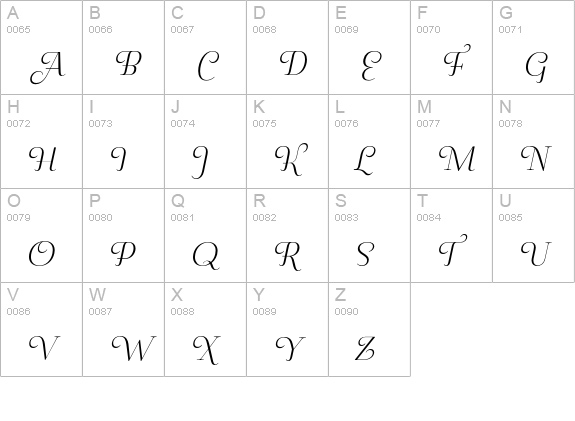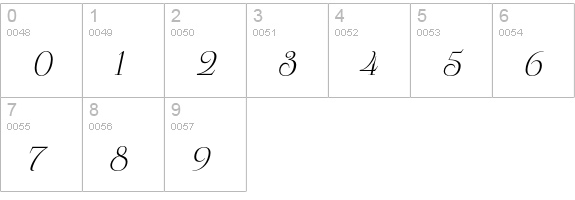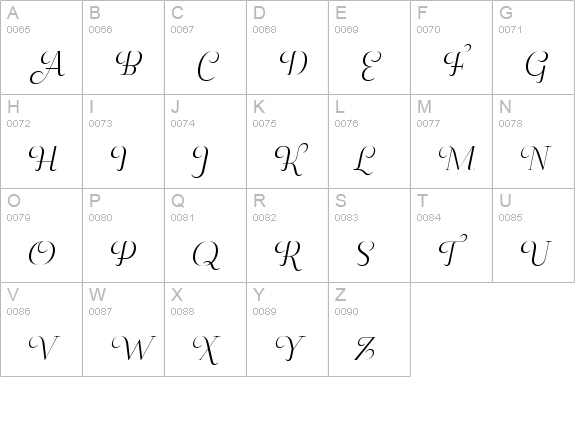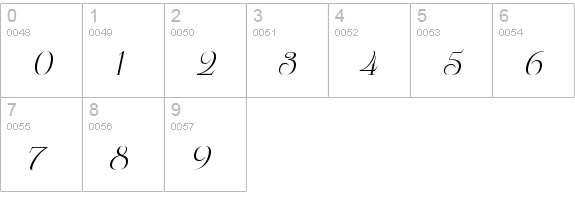
Pauline Didone Light Italic Font Details
Pauline Didone Light Italic is a refined, elegant, italic variant in the Pauline typeface family \xE2\x80\x94 well suited to elegant body text, refined sub-headings, and luxury branding.
Pauline Didone Light Italic font embodies elegance and sophistication with its delicate curves and slender letterforms. The graceful italic style adds a touch of refinement to any design project, making it perfect for invitations, branding, and editorial projects. The light weight of the font gives it an airy and modern feel, while maintaining a sense of classic beauty. Best of all, Pauline Didone Light Italic font is available for free download at FontsMarket.com. This means you can easily access this stunning typeface for your creative endeavors without any cost. Whether you're a designer looking to elevate your work or a hobbyist wanting to add a touch of flair to your projects, this font is a fantastic choice that won't break the bank. Download Pauline Didone Light Italic font today and bring a touch of timeless elegance to your designs.